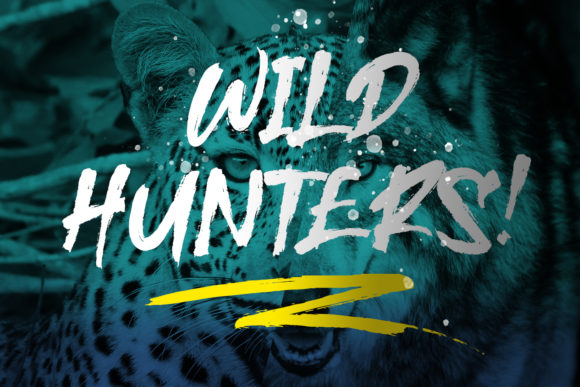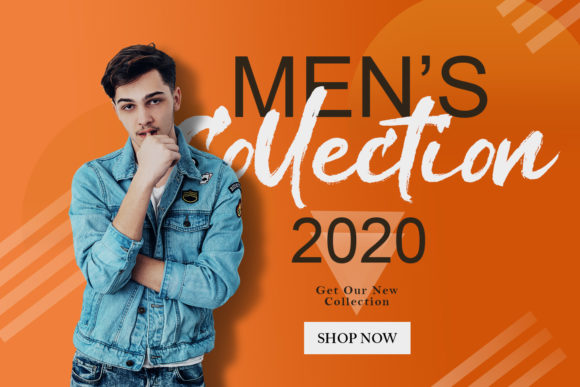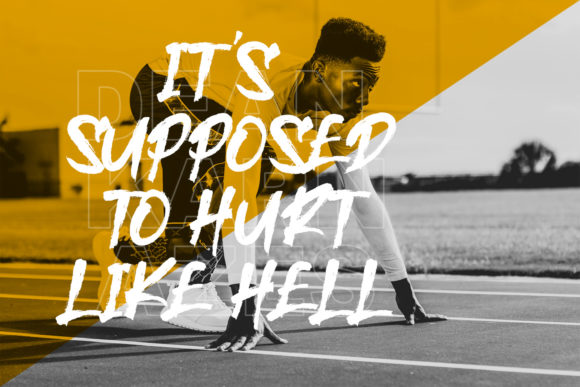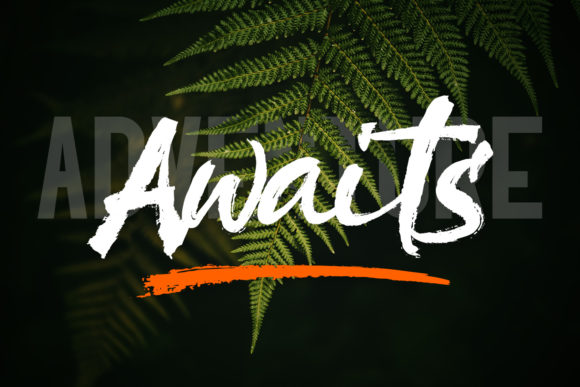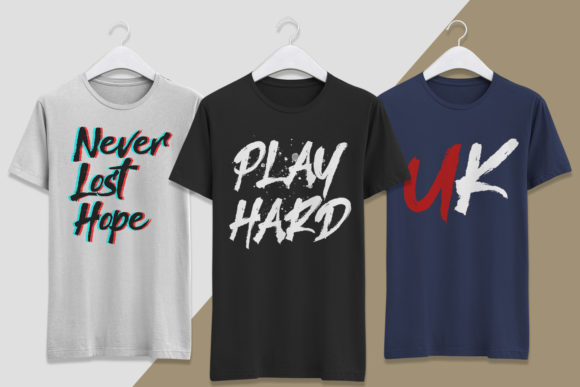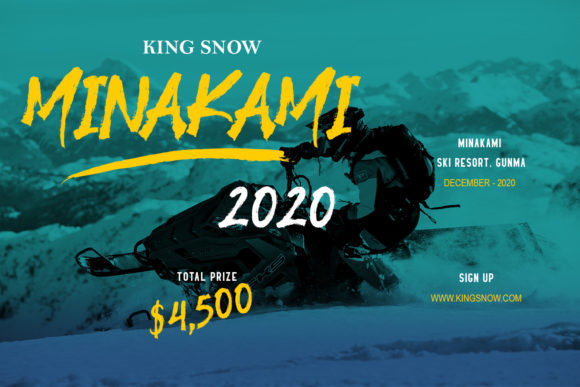
Introduction to Kaishou! Font
Have you ever found yourself staring at a blank canvas, searching for the perfect design element to bring your creative project to life? That’s exactly where I was when I stumbled upon the Kaishou! Font. Its unique, hand-crafted style is an absolute game-changer for any DIY enthusiast or designer looking to add a touch of personality to their work.
As a valuable resource for designers, the Kaishou! Font offers a high-quality, versatile dry brush design that can be used in a variety of creative contexts. With its transparent background, you can easily overlay it onto any background image or color scheme, making it a seamless addition to any design project.
Whether you’re working on a free download or a paid project, the Kaishou! Font is sure to elevate your design to the next level. Its beauty lies in its imperfections, making it a one-of-a-kind design resource that’s sure to impress.
Key Features of Kaishou! Font
- Unique, hand-drawn style with transparent background for added versatility
- Perfect for use in digital and print design, including logos, graphics, and typography
- Supports multiple languages, making it a great resource for international creative projects
Honest Review: Kaishou! Font
As a designer, I’m always on the lookout for high-quality design resources that can elevate my creative projects. I recently stumbled upon the Kaishou! Font, and I’m excited to share my thoughts on this free download.
- ✨ Unique and playful style: The Kaishou! Font has a quirky, hand-drawn feel that adds a touch of personality to any design.
- ✨ High-quality glyphs: The font includes a wide range of characters, including punctuation and symbols, making it perfect for creative projects that require a bit of flair.
- ✨ Transparent background: This allows for seamless integration with other design elements and makes it easy to use as a background or overlay.
- ⚠️ Limited language support: While the font includes a good range of characters, it’s not as comprehensive as some other fonts I’ve used.
- ⚠️ Not ideal for body text: The font’s playful style makes it better suited for headlines and titles, rather than large blocks of body text.
Overall, I think the Kaishou! Font is a great addition to any designer’s toolkit. While it may not be perfect for every project, its unique style and high-quality glyphs make it a great choice for creative projects that require a bit of flair.
Tips for Getting the Most Out of Kaishou! Font
Use Kaishou! Font to add a touch of elegance to your design projects. This high-quality font is perfect for creative projects that require a transparent background, making it ideal for designs that need to be layered or superimposed.
Kaishou! Font is commonly used in designs that require a sophisticated and modern look, such as logos, business cards, and brochures. Its clean and minimalist design makes it perfect for designers who want to add a touch of sophistication to their projects.
Does Kaishou! Font include a transparent background?
Yes, Kaishou! Font is designed with a transparent background, allowing for easy layering and blending with other design elements. This feature is particularly useful for graphic designers working on projects that require intricate layering and text effects.